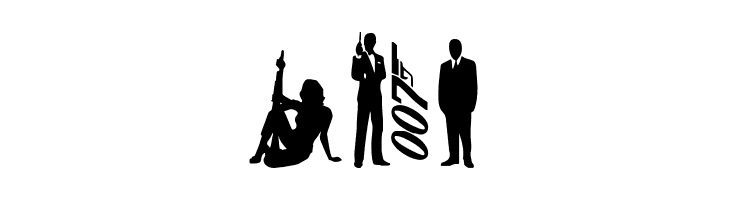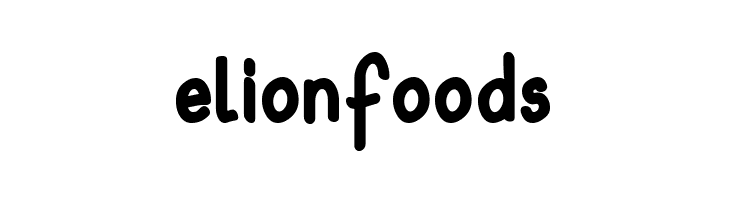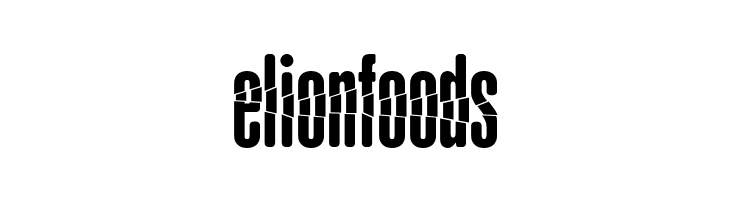
A bold, italic font with a dynamic and playful style.
A dynamic, italic script font with a handwritten style.
A bold, modern font with a unique cut-through design, perfect for impactful visuals.
A bold, modern font with a unique cut-through effect, perfect for striking headlines.
A bold, playful script font with a handwritten feel.
Silhouette dingbat font with spy and action motifs.
A vintage-inspired font with sharp serifs and art deco elements.
A playful and whimsical font with vintage theatrical flair.
A playful, rounded font with smooth curves and a whimsical style.
A playful, bold font with rounded edges and a whimsical style.